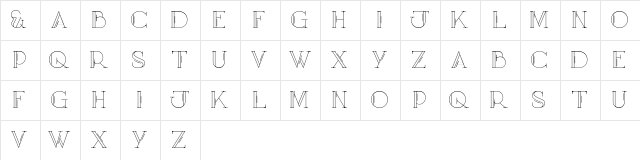
Complete Mary [CAPS] Outline glyph index. Displaying only characters natively supported by Mary [CAPS] Outline font.
Mary [CAPS] Outline is built around its visual character rather than neutral utility - its distinctive forms are designed to make an impression at display sizes.
Font Pairing: Pair with a clean neutral sans-serif for body copy to let Mary [CAPS] Outline's character lead without overwhelming the composition.
Pro Tip: Use Mary [CAPS] Outline exclusively at display sizes - it was designed to be seen, not read at length. Let a neutral companion handle body copy.